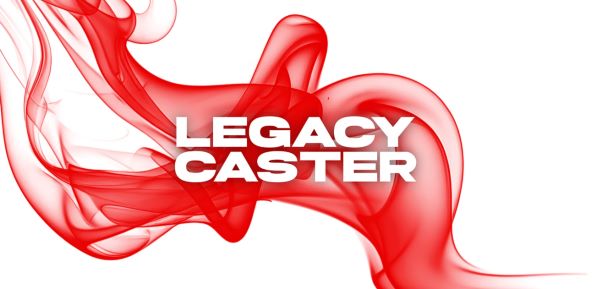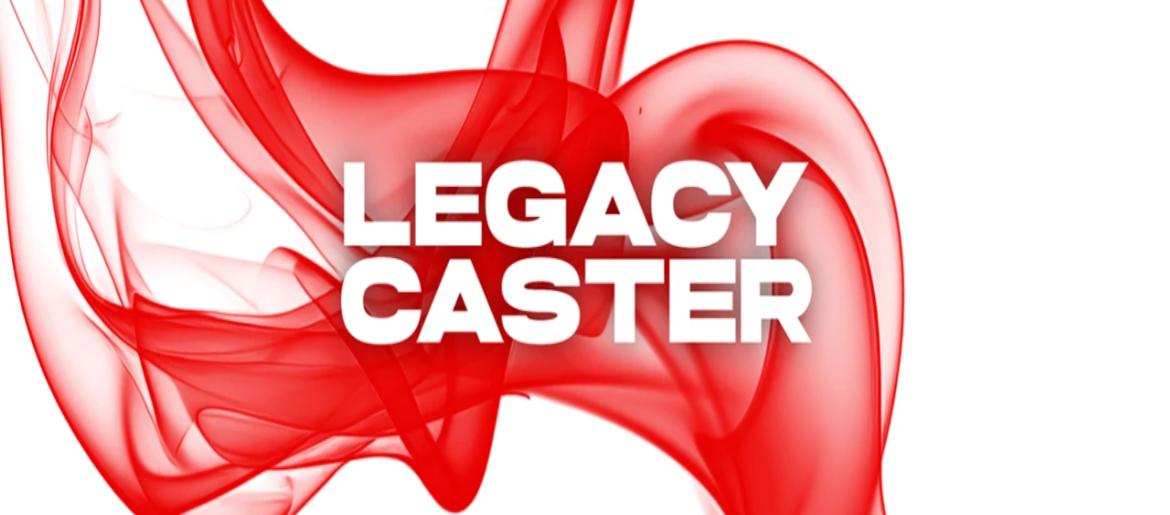
Legacy Caster Font
Legacy Caster by John Benedict Mangco is a free display font that carries the weight of history in every letterform — bold, deliberate, and built to last. Its strong structural presence and confident strokes make it an instinctive choice for projects that want to communicate authority, craft, and staying power. Whether applied to logotypes, editorial headers, packaging, or motion graphics, it brings a sense of gravitas that modern sans-serifs rarely achieve. A typeface that earns its name. Available free for personal use.